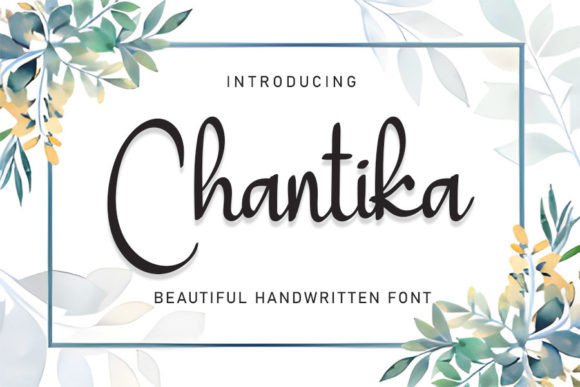
Introducing Chantika Font, a calligraphic masterpiece that dances along the baseline with romantic charm and sweet elegance. This family of the script finds its place in an array of designs, from logos and wedding invitations to headings and t-shirts.
Unleash your creativity with Chantika's graceful swashes and effortless flow. Its characters, as if penned by a skilled hand, infuse every word with a touch of sophistication. Ascenders and descenders playfully intertwine, creating a visual rhythm that captivates the eye.
Express your heartfelt emotions with Chantika, a font that speaks from the heart. Its delicate curves and gentle strokes convey sincerity, making it an ideal choice for wedding invitations, love letters, and heartfelt messages.
Dive into the world of Chantika, where words come alive with a timeless elegance. Let its enchanting aura enhance your designs, adding a touch of whimsy and romance that will leave a lasting impression.